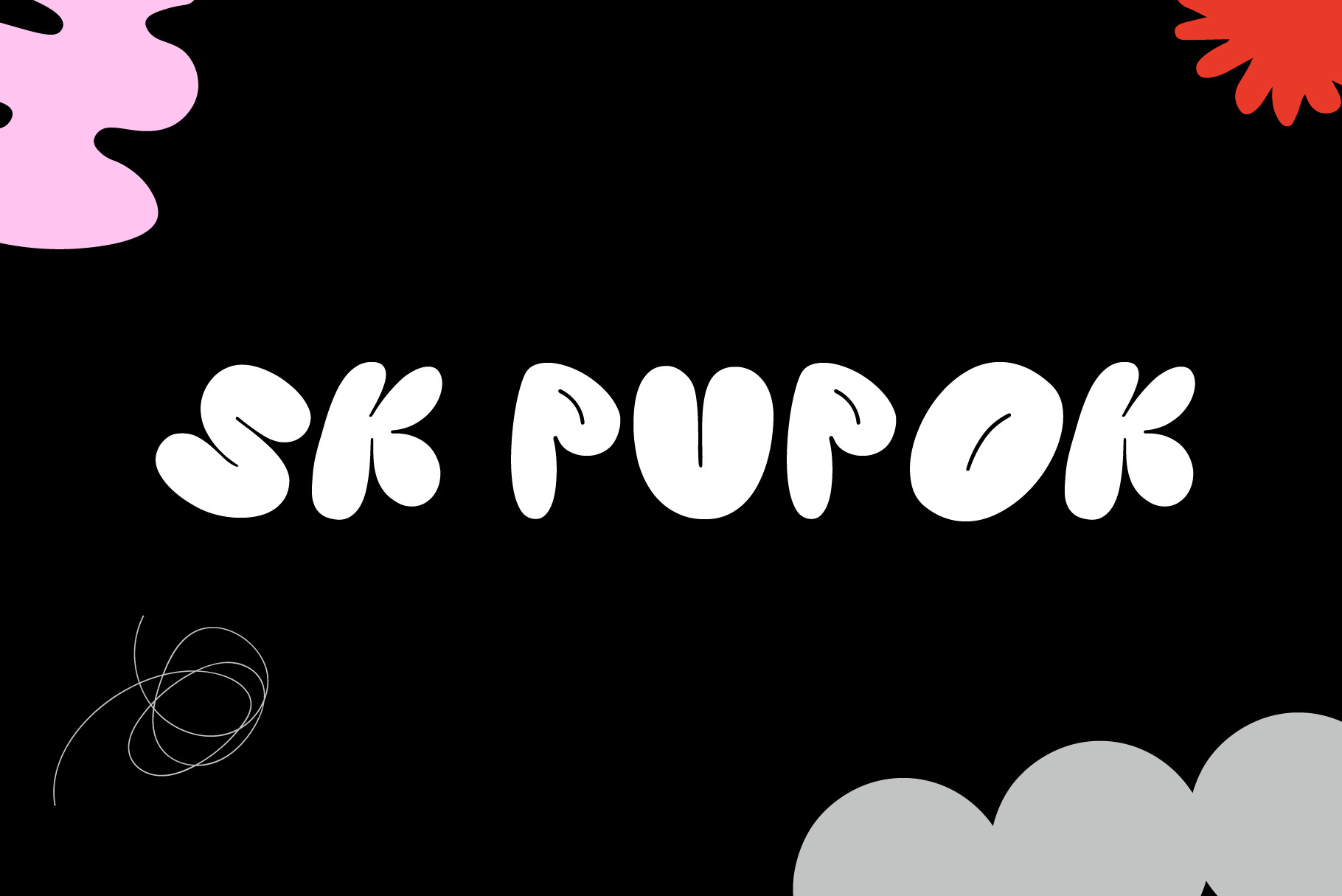
SK Pupok — Smooth Display Font
SK Pupok is a soft decorative typeface with rounded shapes. Its friendly appearance is suitable for many design tasks. The typeface has two styles: regular and outline. This configuration allows you to experiment with typeface compositions and styles. The SK Pupok typeface is multilingual and supports many languages, including the basic and extended Latin, Cyrillic, and many others. It is great for creating any design works and will look great in poster design and even in web design.